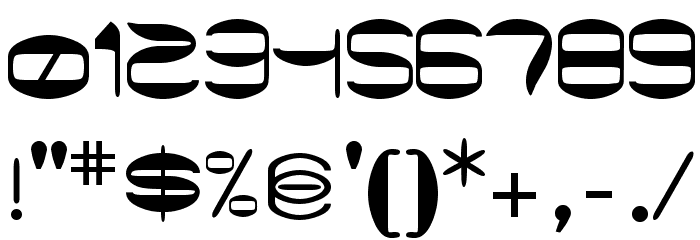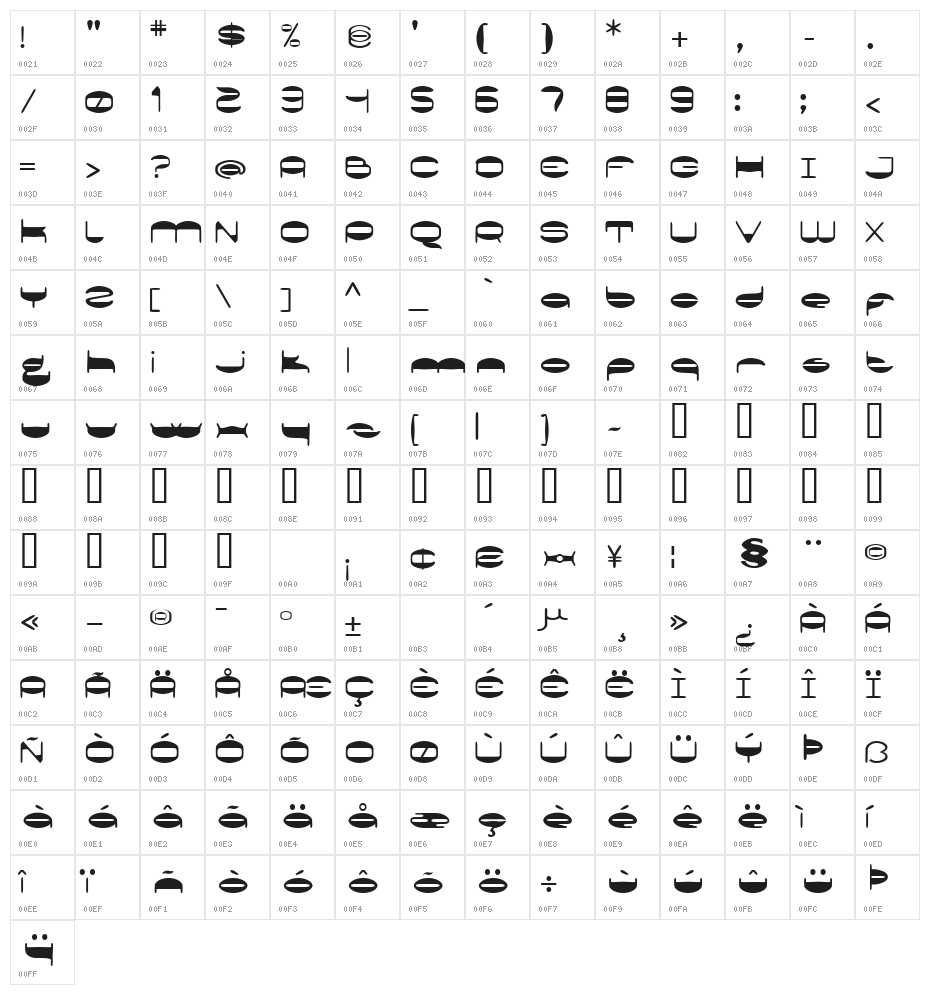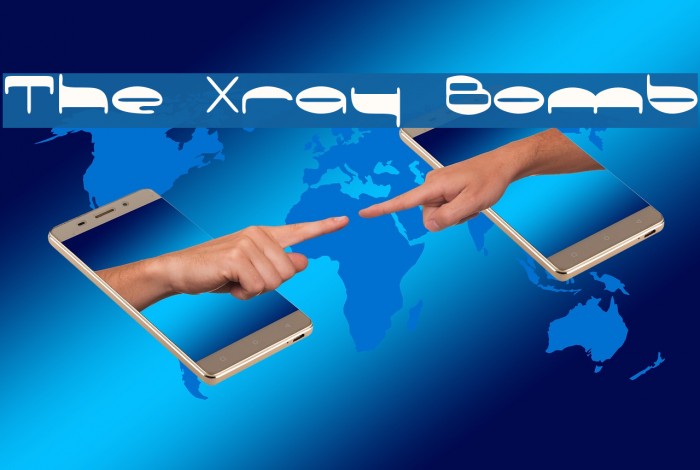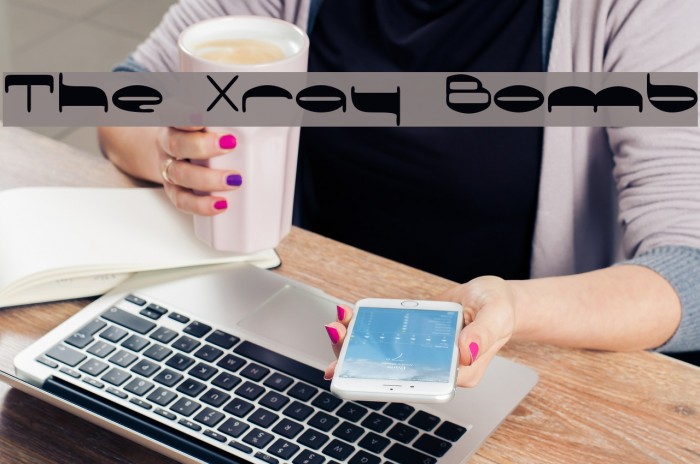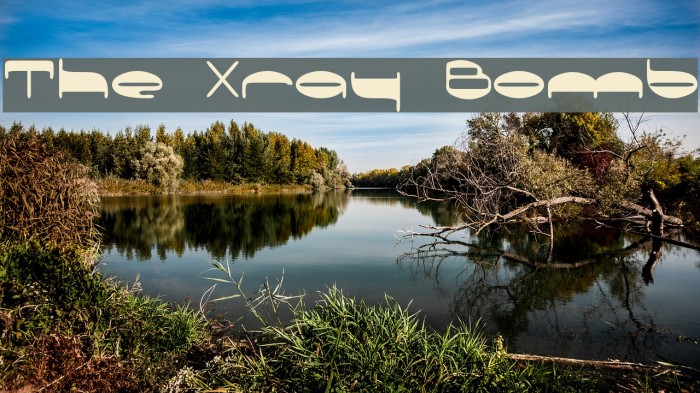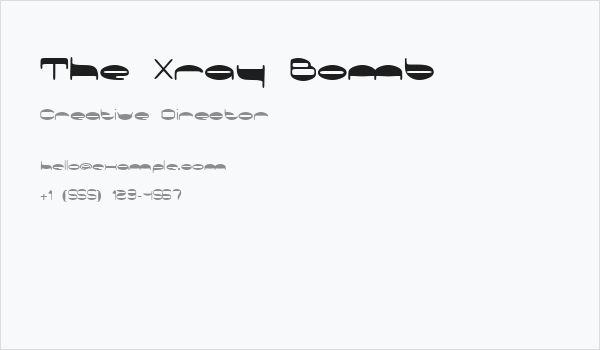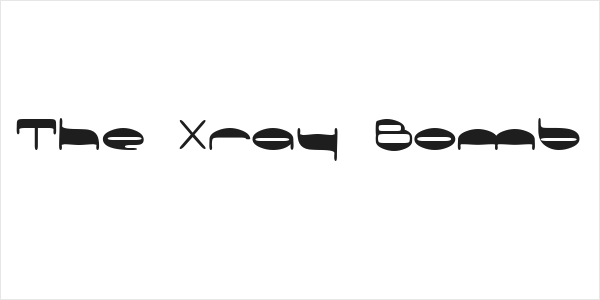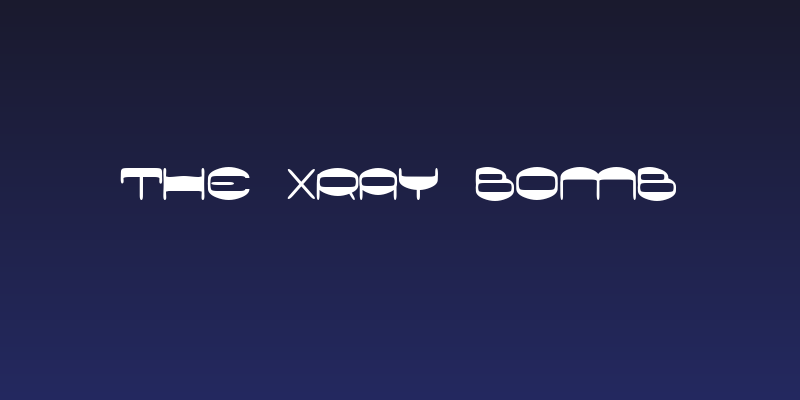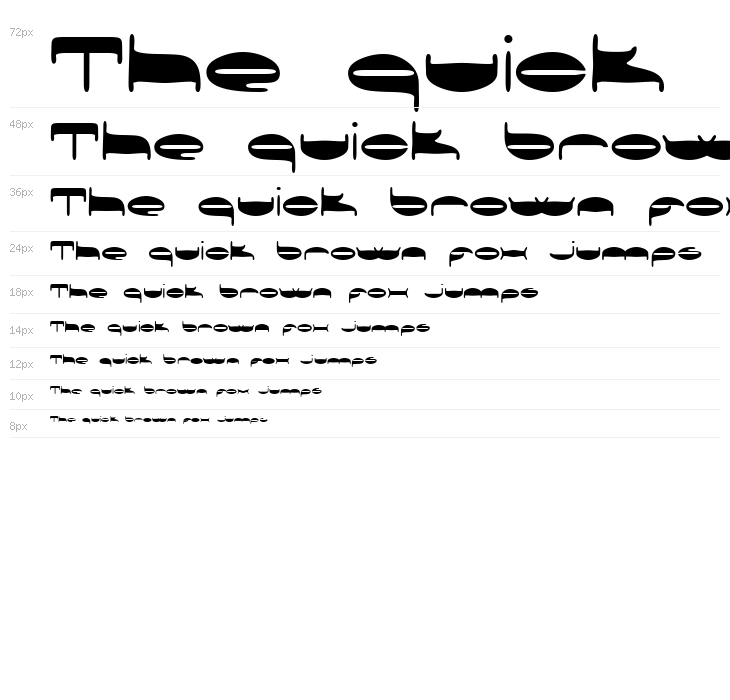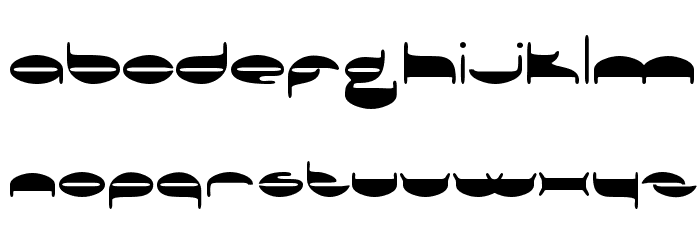
The Xray Bomb Font
The Xray Bomb Description
This font exhibits a futuristic and bold design, characterized by its unique and unconventional letterforms. The uppercase and lowercase letters share a consistent style, with rounded edges and a distinct geometric influence. The numbers and special characters maintain this cohesive look, adding to the font's overall modern aesthetic. The strokes are thick, providing a strong visual impact, while the spacing between characters is relatively tight, enhancing its compact appearance. This font's design is ideal for projects that require a contemporary and edgy feel.
| Proposed Projects | Ideal for sci-fi themed designs, modern branding, tech-related projects, and eye-catching headlines. |